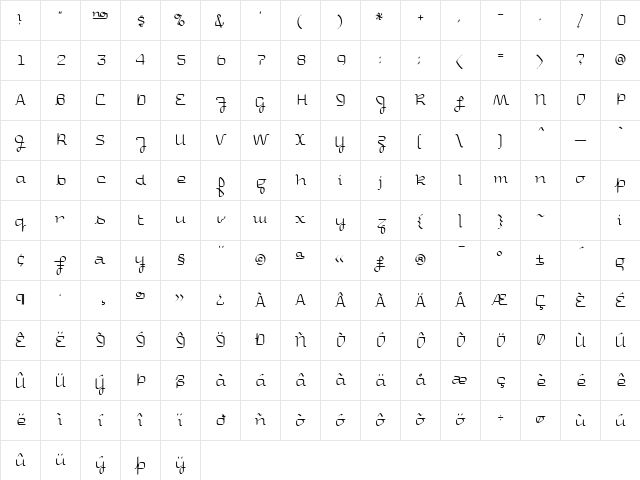
Uniglow Fifty Free Font
Uniglow Fifty
Style: Fifty
Uniglow Family
Uniglow Fifty
Design Context for Uniglow
Uniglow is a composed and adaptable typeface that performs quietly and consistently across a wide range of design contexts.